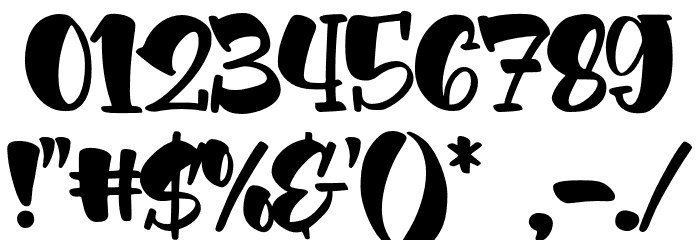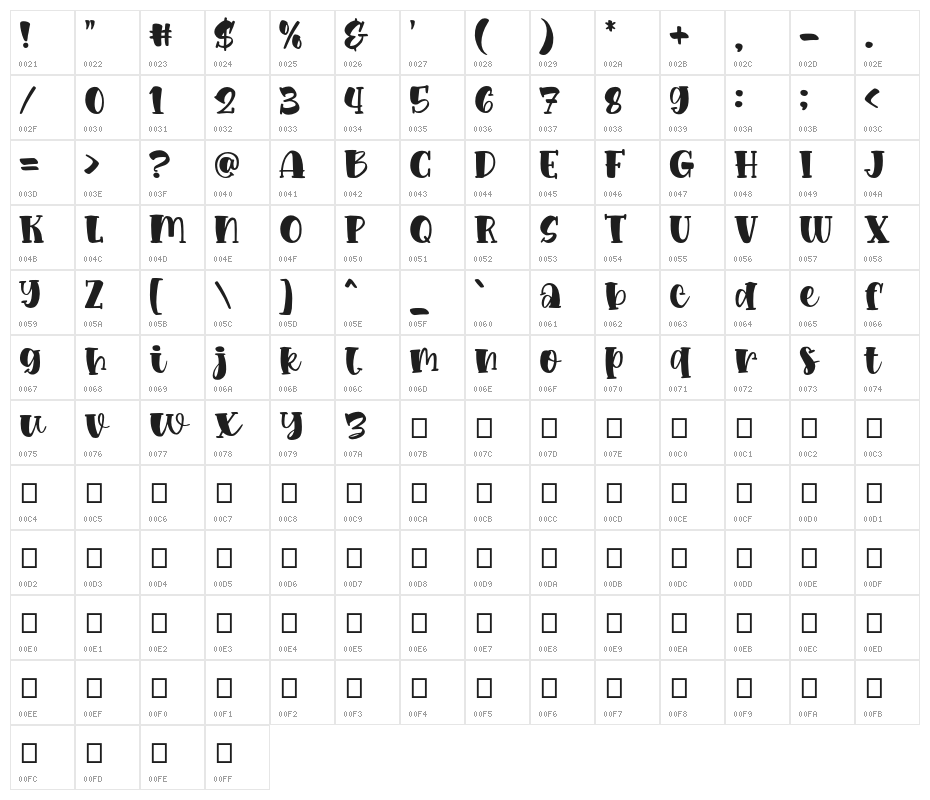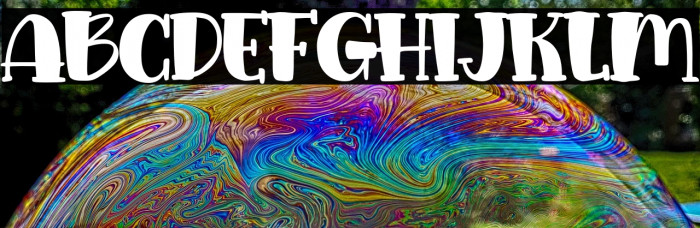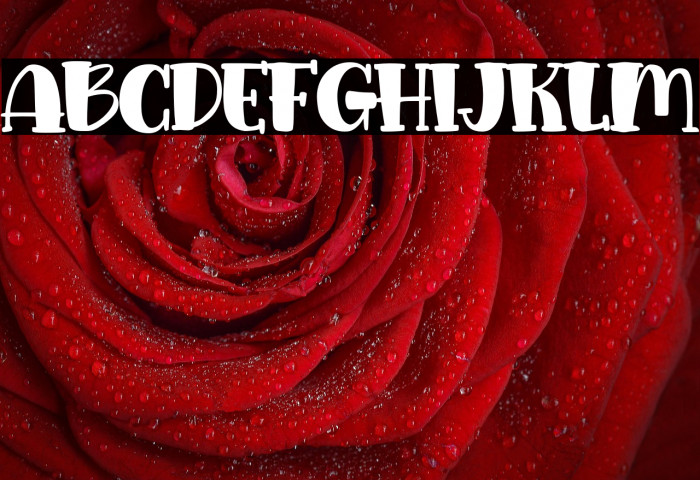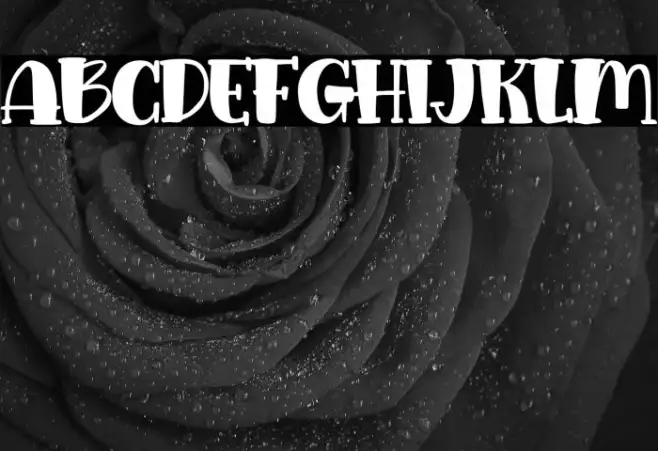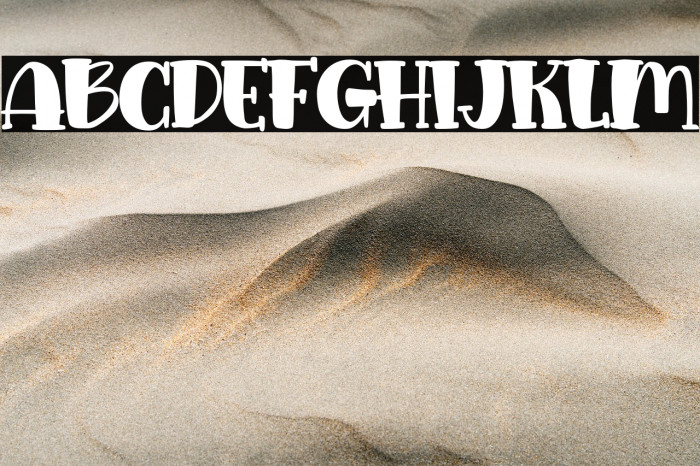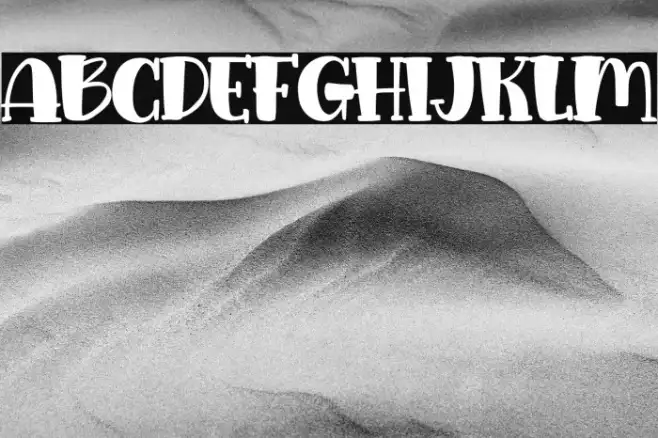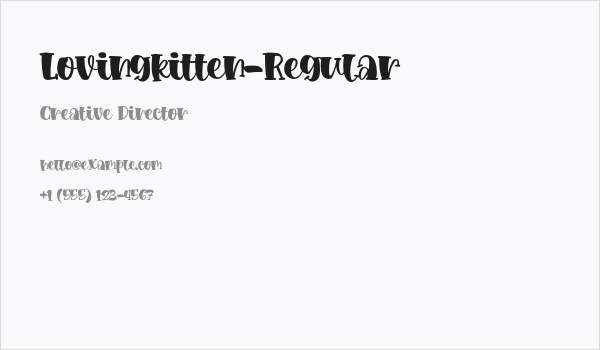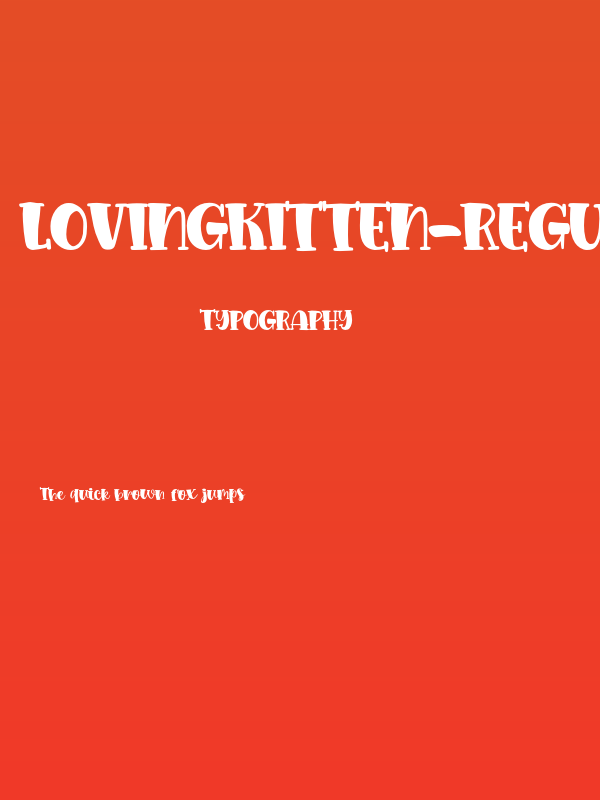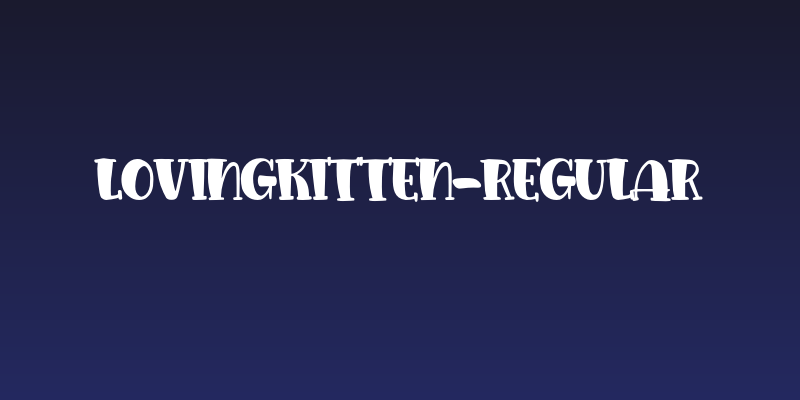
Lovingkitten-Regular Font
Lovingkitten-Regular Description
This playful and whimsical font features bold, rounded characters with a hand-drawn aesthetic. The letters have a unique charm, with slight variations in stroke width that add a lively and dynamic feel. The uppercase and lowercase letters are distinct yet harmonious, making the font versatile for various design needs. The numbers and special characters maintain the same playful style, ensuring consistency across different uses. The font's overall appearance is both friendly and eye-catching, making it suitable for creative projects that require a touch of fun and personality.